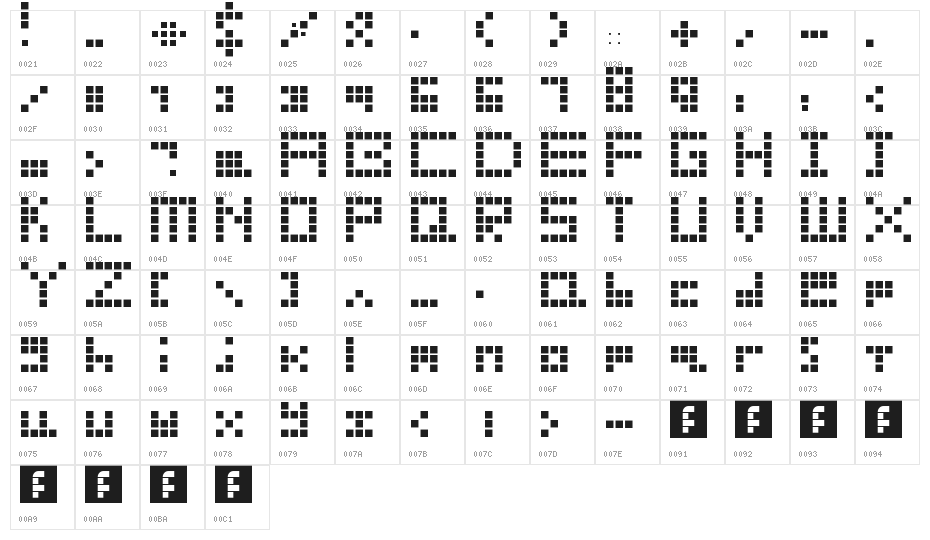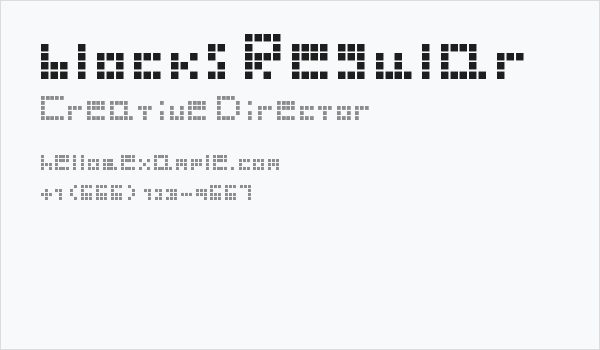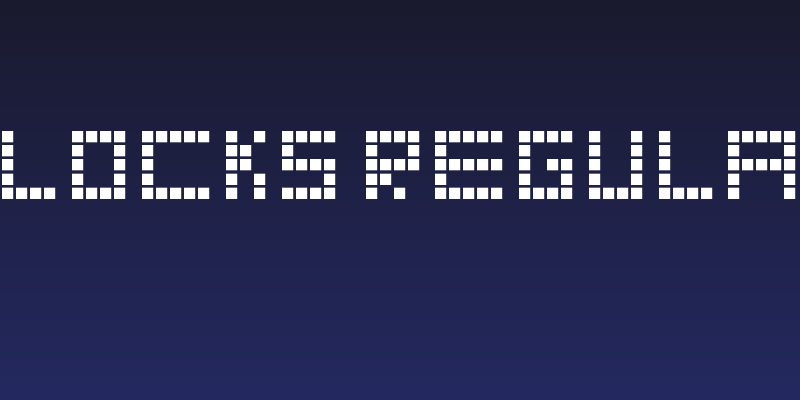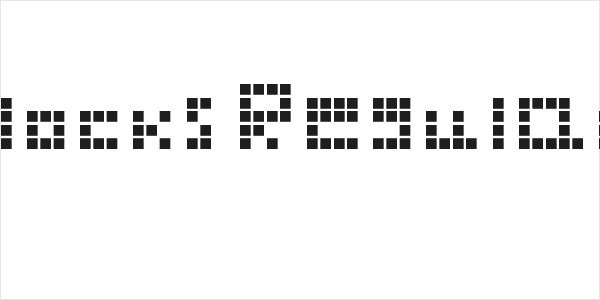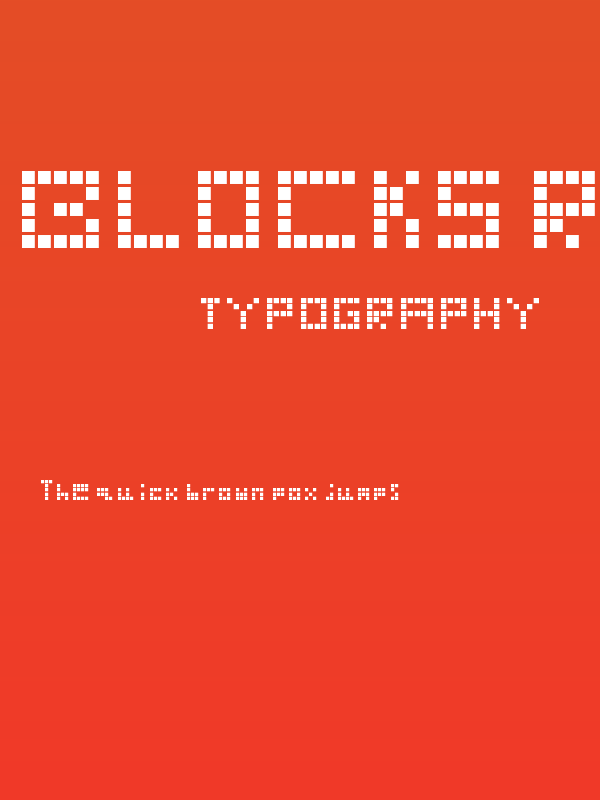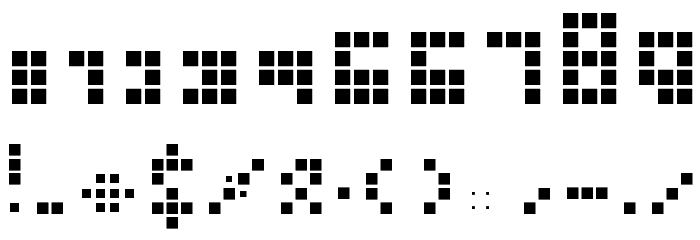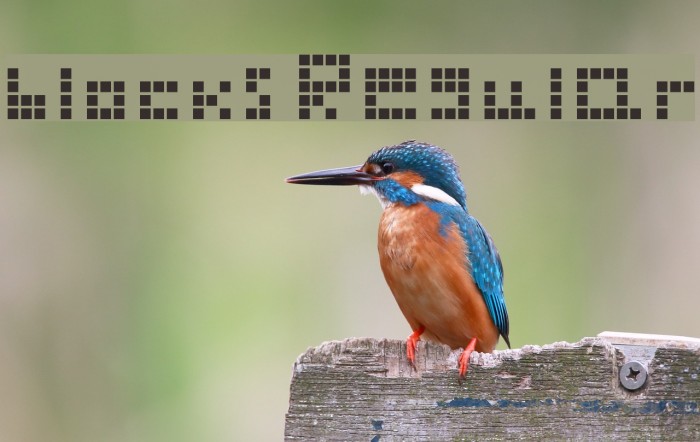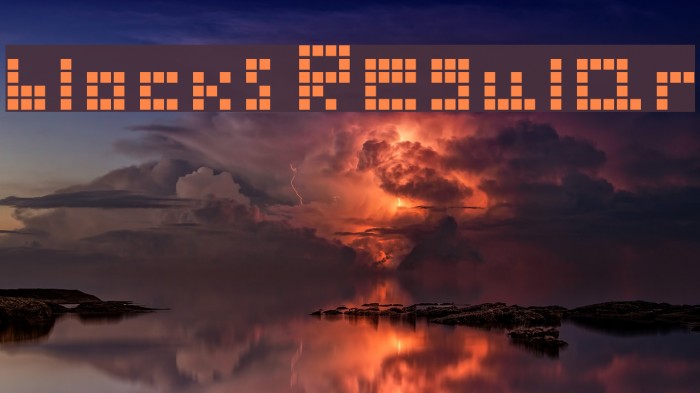
blocks Regular Font
blocks Regular Description
This font features a unique design composed entirely of small square blocks, creating a pixelated and digital appearance. Each character is constructed with precision, maintaining uniformity across uppercase, lowercase, numbers, and special symbols. The geometric nature of the font gives it a modern and tech-inspired feel, ideal for digital displays and creative projects that require a futuristic touch. The consistent block structure ensures readability while adding a distinct visual style that stands out in any design context.
| Proposed Projects | Ideal for digital art, tech-themed posters, video game graphics, and futuristic branding. |